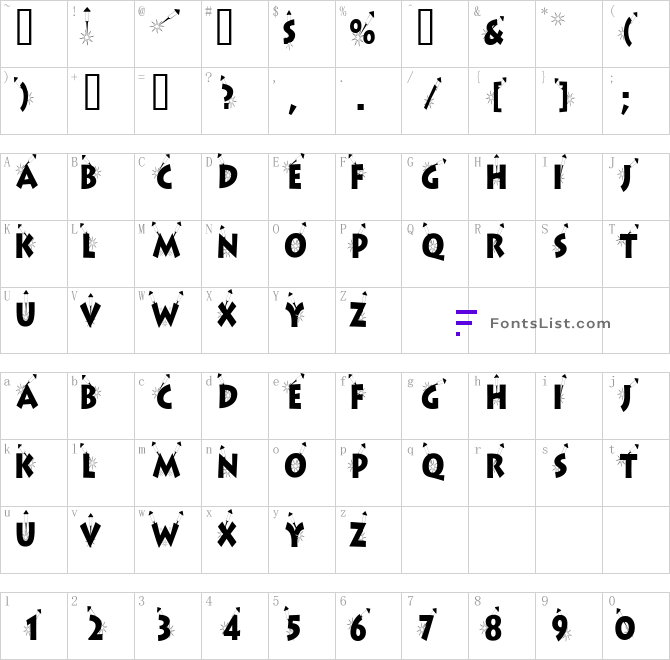
- Font Name:Apollo13Condensed
Apollo13Condensed.ttf is a very beautiful artistic font, Apollo13Condensed.ttf is widely used in the design and printing of various books and pictures,Apollo13Condensed.ttf has a strong visual impact,Apollo13Condensed.ttf is a commonly used font in newspapers, magazines and books, and is used in posters, e-commerce Poster design, store design, logo design, font design and other fields.Apollo13Condensed.